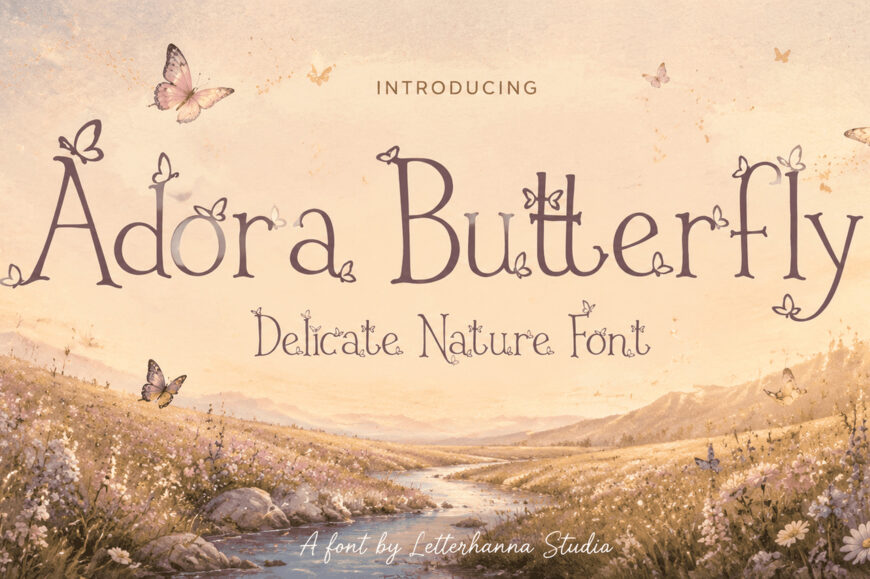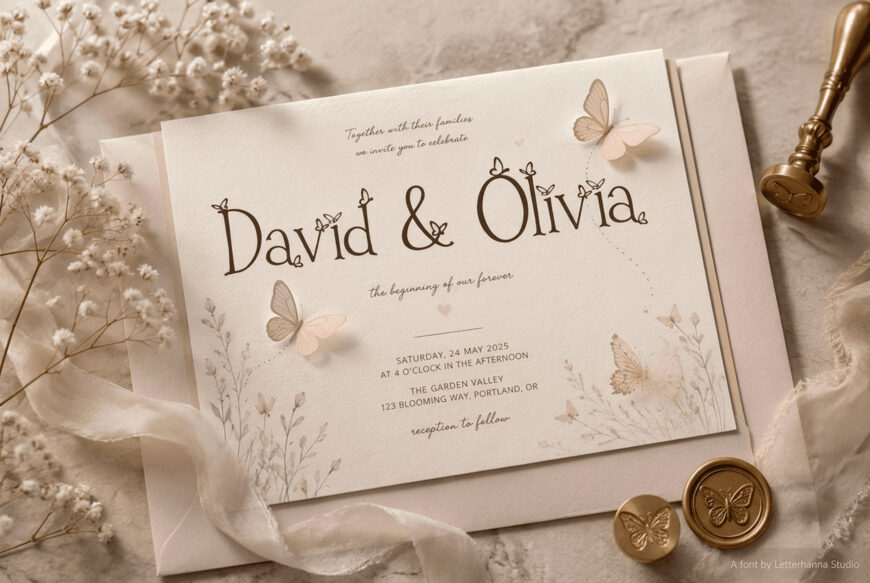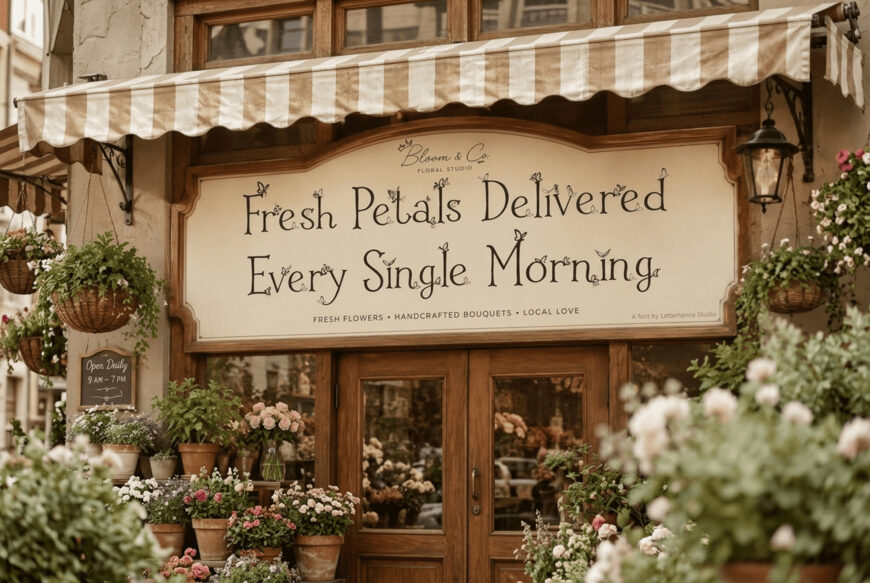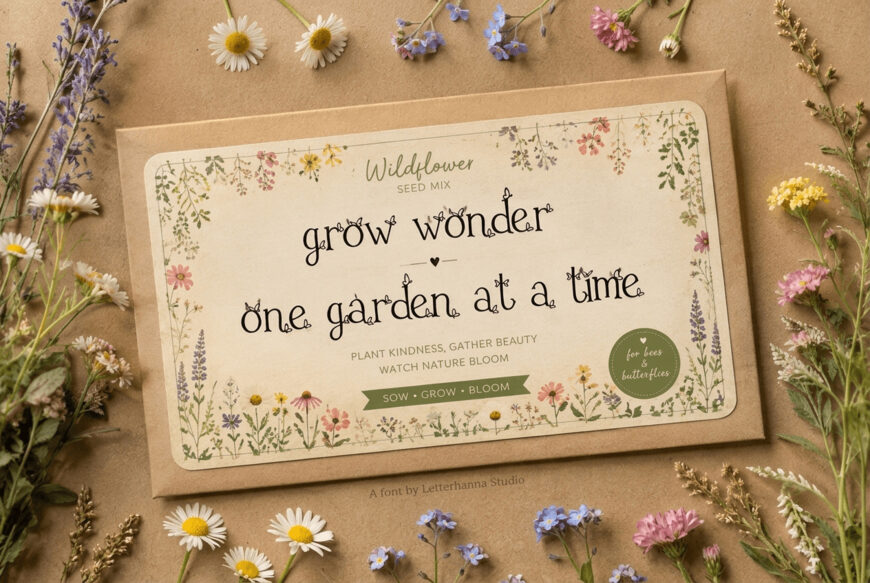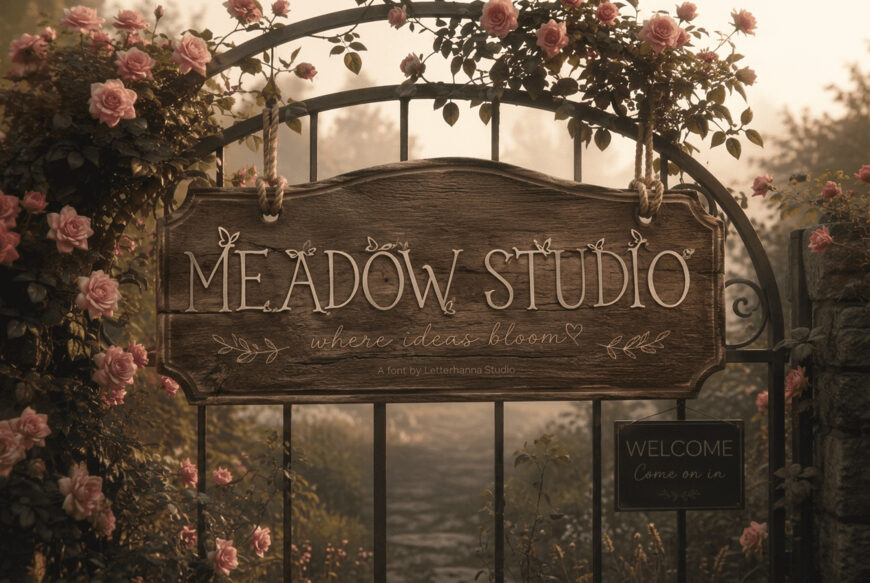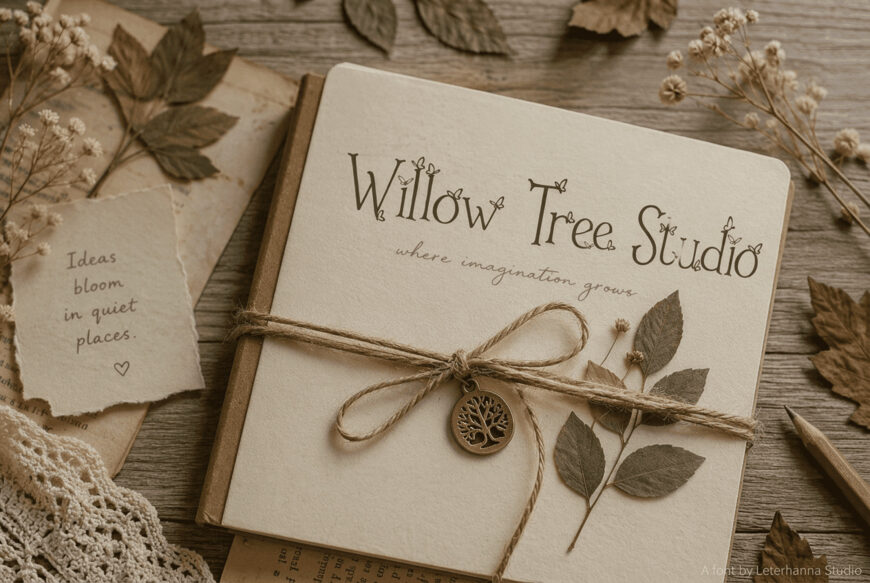
Adora Butterfly is a romantic garden-inspired serif font featuring tall, elegant letterforms and delicate hand-illustrated butterflies woven into its design. Inspired by wildflowers, climbing vines, and quiet mornings in nature, it blends sophistication with whimsical storybook charm.